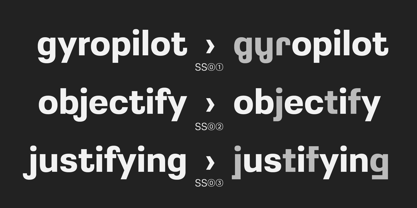
Greater Neue Condensed
by NicolassFonts
The Greater Neue Condensed Font Family was designed by Nikolay Savchuk and published by NicolassFonts. Greater Neue Condensed contains 16 styles and family package options.
The Greater Neue font family is a modern collection consisting of 80 weights, 40 uprights, and matching italics. Condensed width consisting of 16 weights, 8 uprights, and matching italics. It is perfect for packaging, advertisements, headlines, and corporate identities. This font family is well-suited for graphic design and any type of display use.
Designers: Nikolay Savchuk
Publisher: NicolassFonts
Foundry: NicolassFonts
Design Owner: NicolassFonts
About NicolassFonts
Savchuk Mykola began his career as a graphic designer. Over time, he had a desire to create a font that would reflect his view of typography. ‘They say that all ingenious things are simple, although unique. In my future projects, I want to reflect simplicity on the one hand and uniqueness on the other, providing the ability to adjust individual elements using OpenType features to the fullest. I am amazed by the human ability to discover new and beautiful and I want to develop this ability.’